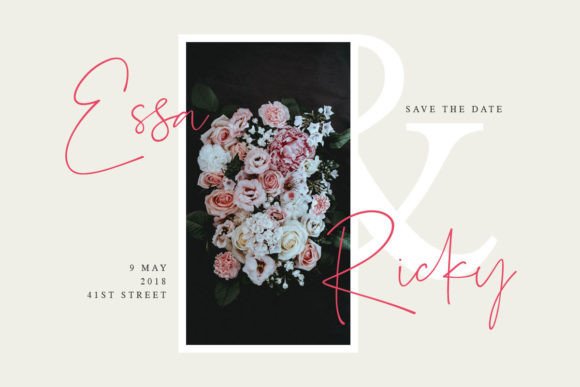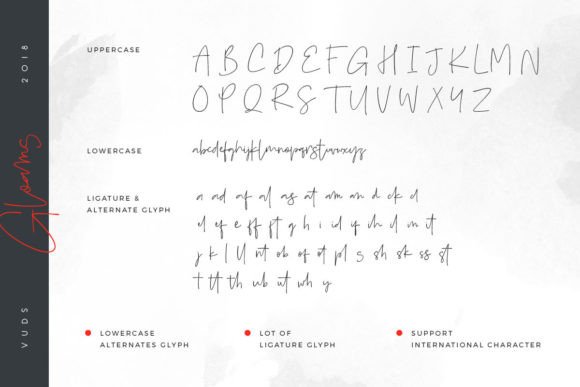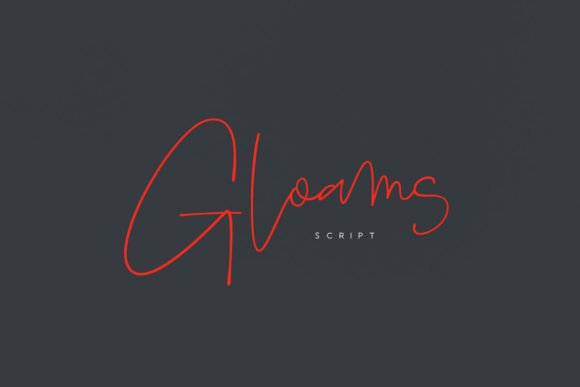
Introducing Gloams Font: The Ultimate Modern Script Font for Designers and Crafters
In the world of typography, a good font can make all the difference in the success of a design project. For designers and crafters looking for a modern and feminine script font, Gloams Font is an excellent choice. This beautifully crafted font is perfect for a wide range of projects, from photography and watermarks to weddings and branding. In this article, we’ll take a closer look at Gloams Font and explore its features, benefits, and uses.
A Modern Script Style with a Feminine Touch
Gloams Font is a modern script font that exudes elegance and sophistication. Every single letter has been carefully crafted to make your text look beautiful and refined. The font’s modern script style is characterized by its flowing lines, delicate curves, and subtle swashes. This makes it perfect for designers and crafters who want to add a touch of femininity and glamour to their projects.
One of the best things about Gloams Font is its versatility. This font is perfect for many different projects, including:
- Photography: Add a touch of elegance to your photo captions, watermarks, and social media posts.
- Weddings: Create beautiful wedding invitations, stationery, and decorations with Gloams Font.
- Branding: Use Gloams Font to create stunning logos, business cards, and marketing materials.
- Fashion: Add a touch of glamour to your fashion designs, apparel, and accessories.
- Blog Headers: Create eye-catching blog headers and social media graphics with Gloams Font.
- Posters: Design stunning posters and flyers with Gloams Font.
- Invitations: Create beautiful invitations for parties, events, and special occasions.
- Stationery: Add a touch of elegance to your stationery, journals, and planners.
Gloams Font is PUA (Private Use Area) encoded, which means you can access all of the glyphs and swashes with ease. This makes it easy to customize your text and add special effects to your designs. With Gloams Font, you can:
- Access a wide range of glyphs and swashes to add variety to your text.
- Customize your text with ease using PUA encoded characters.
- Create stunning designs with a unique and personalized touch.
Why Choose Gloams Font?
So why choose Gloams Font for your design projects? Here are just a few reasons:
- Unique and elegant design: Gloams Font is a one-of-a-kind font that will make your designs stand out.
- Versatility: Gloams Font is perfect for a wide range of projects, from photography to weddings and branding.
- Easy to use: Gloams Font is PUA encoded, making it easy to access and customize.
- High-quality: Gloams Font is a high-quality font that is designed to produce stunning results.
In conclusion, Gloams Font is a modern and feminine script font that is perfect for designers and crafters looking for a unique and elegant font for their projects. With its modern script style, versatility, and PUA encoding, Gloams Font is an excellent choice for a wide range of design projects. Whether you’re a professional designer or a crafter, Gloams Font is sure to become a valuable addition to your font collection.